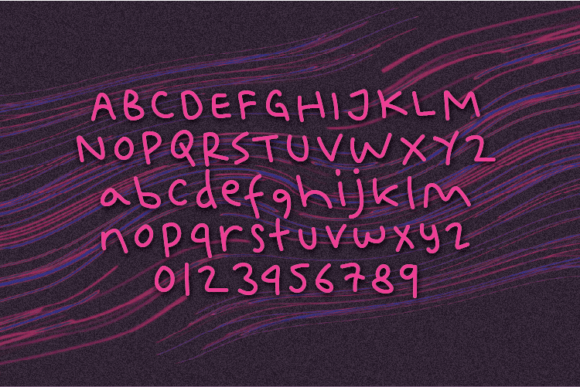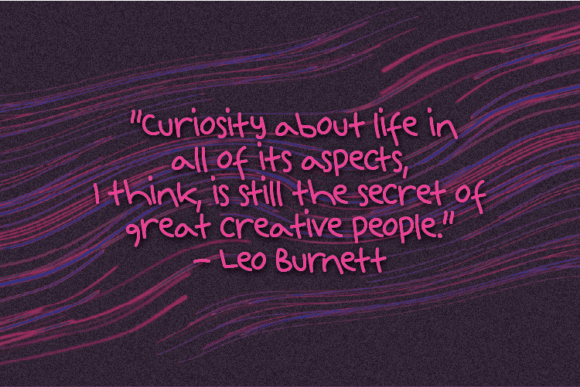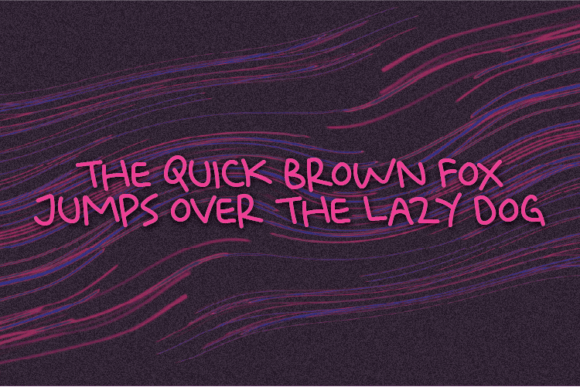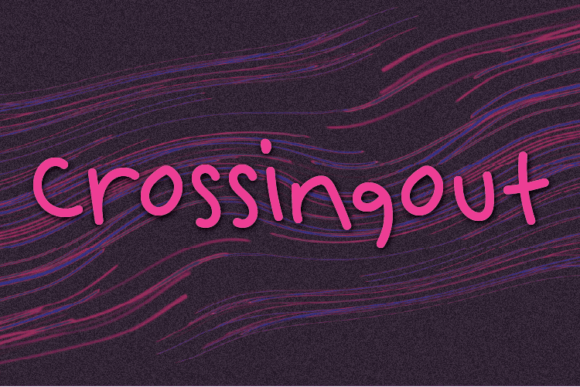
Introducing Crossingout Font: The Fun and Casual Handwritten Font You Need
Are you tired of using the same old fonts in your designs? Do you want to add a touch of personality and whimsy to your creations? Look no further than Crossingout Font, a fun and casual handwritten font that’s perfect for designers and crafters alike. In this article, we’ll take a closer look at Crossingout Font, its features, and how it can elevate your designs.
What is Crossingout Font?
Crossingout Font is a handwritten font that’s designed to add a personal touch to your designs. With its casual and playful vibe, this font is perfect for a wide range of projects, from social media graphics and blog posts to invitations and crafts. Whether you’re a professional designer or a DIY enthusiast, Crossingout Font is a wonderful asset to have in your font library.
Features of Crossingout Font
So, what makes Crossingout Font so special? Here are just a few of its key features:
- Handwritten style: Crossingout Font has a genuine handwritten look that’s perfect for adding a personal touch to your designs.
- Casual and playful: This font has a fun and carefree vibe that’s perfect for creating engaging and interactive designs.
- Versatile: Crossingout Font can be used for a wide range of projects, from digital designs to print materials.
- Easy to read: Despite its handwritten style, Crossingout Font is easy to read and understand, making it perfect for body text and headlines.
How to Use Crossingout Font
Now that we’ve covered the features of Crossingout Font, let’s talk about how to use it. Here are a few ideas to get you started:
- Social media graphics: Use Crossingout Font to create eye-catching social media graphics that showcase your personality and brand.
- Blog posts: Add a personal touch to your blog posts with Crossingout Font, perfect for headings, subheadings, and body text.
- Invitations: Create custom invitations for parties, events, and gatherings with Crossingout Font.
- Crafts: Use Crossingout Font to add a personal touch to your crafts, such as scrapbooking, card making, and DIY projects.
Benefits of Using Crossingout Font
So, why should you choose Crossingout Font for your designs? Here are just a few benefits:
- Adds personality: Crossingout Font adds a personal touch to your designs, making them more engaging and interactive.
- Versatile: This font can be used for a wide range of projects, making it a valuable asset to your font library.
- Unique: With Crossingout Font, you can create unique and eye-catching designs that stand out from the crowd.
Tips and Variations
Here are a few tips and variations to help you get the most out of Crossingout Font:
- Experiment with colors: Try pairing Crossingout Font with different colors to create unique and eye-catching designs.
- Mix and match: Combine Crossingout Font with other fonts to create interesting and dynamic designs.
- Play with sizes: Experiment with different font sizes to create visual interest and hierarchy in your designs.